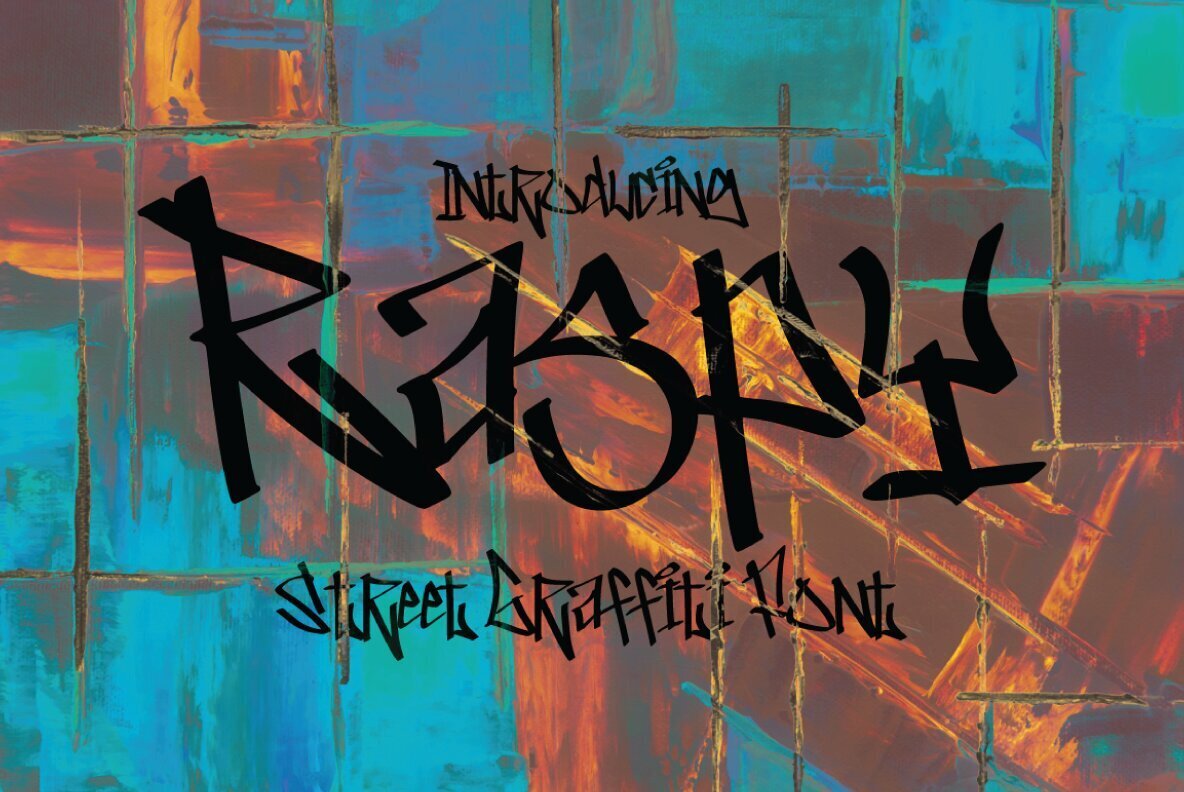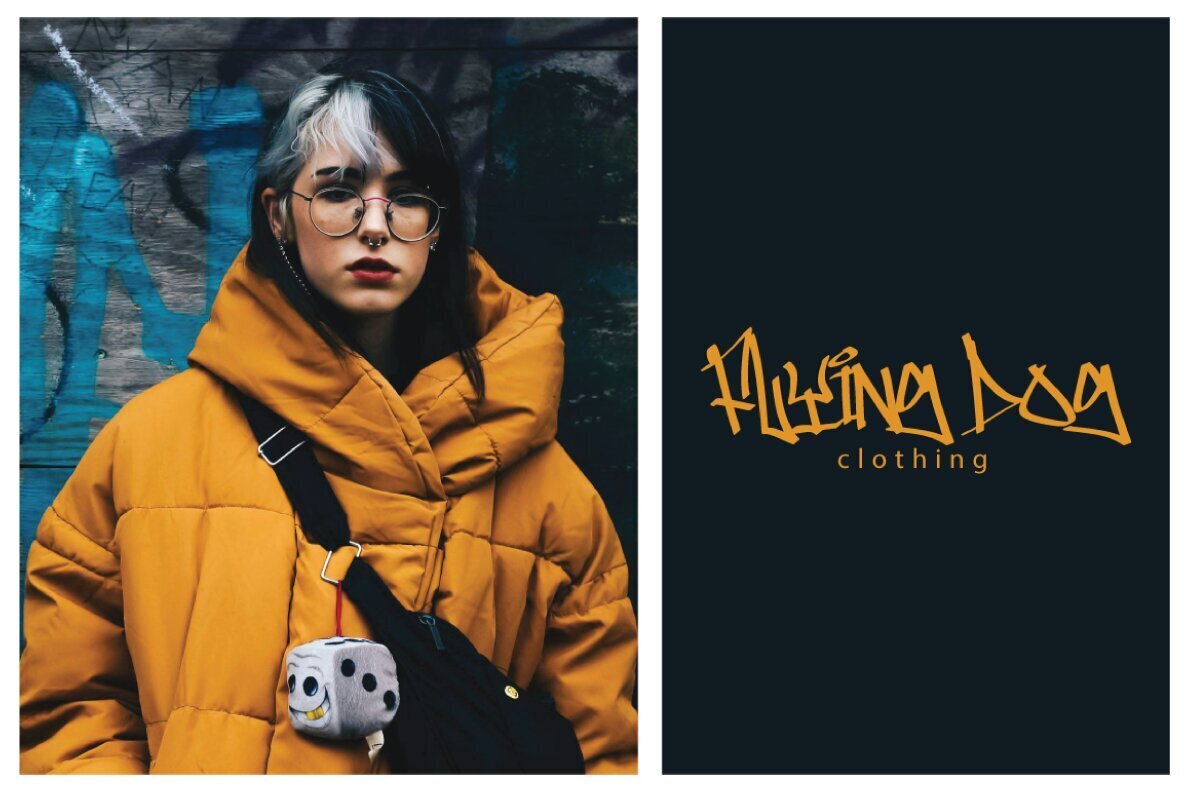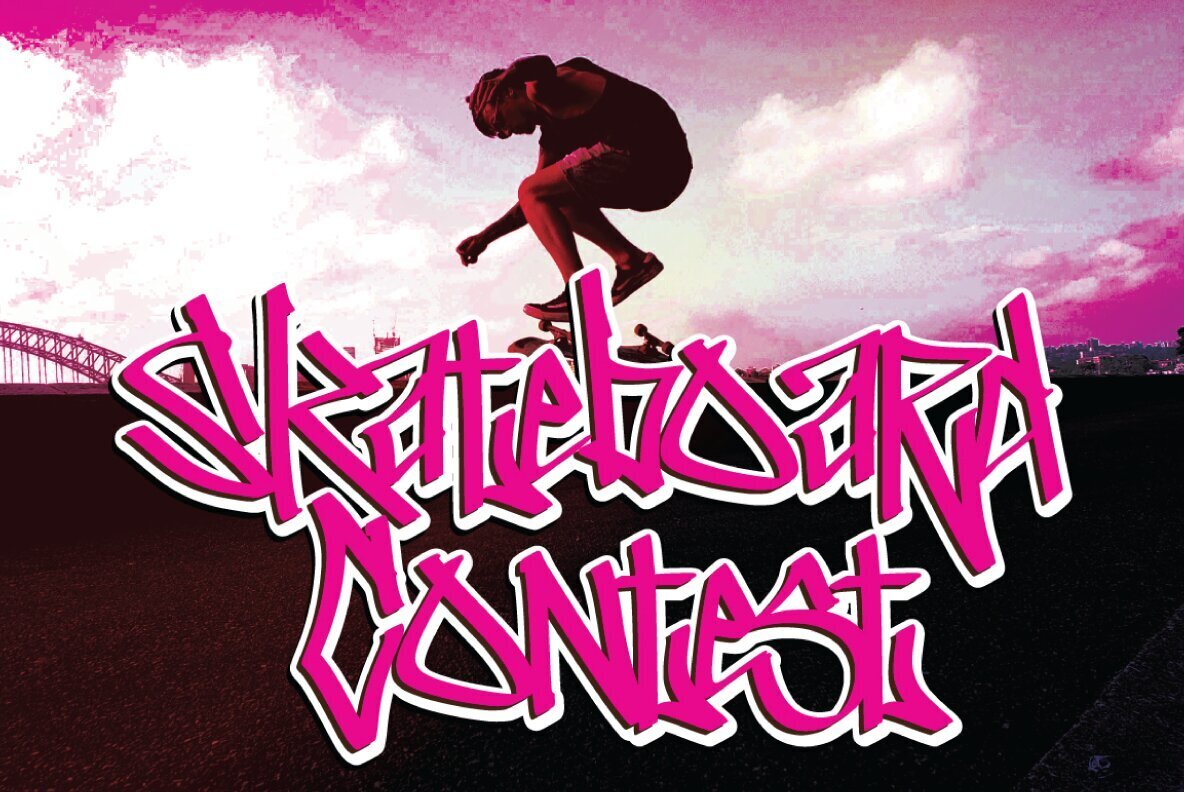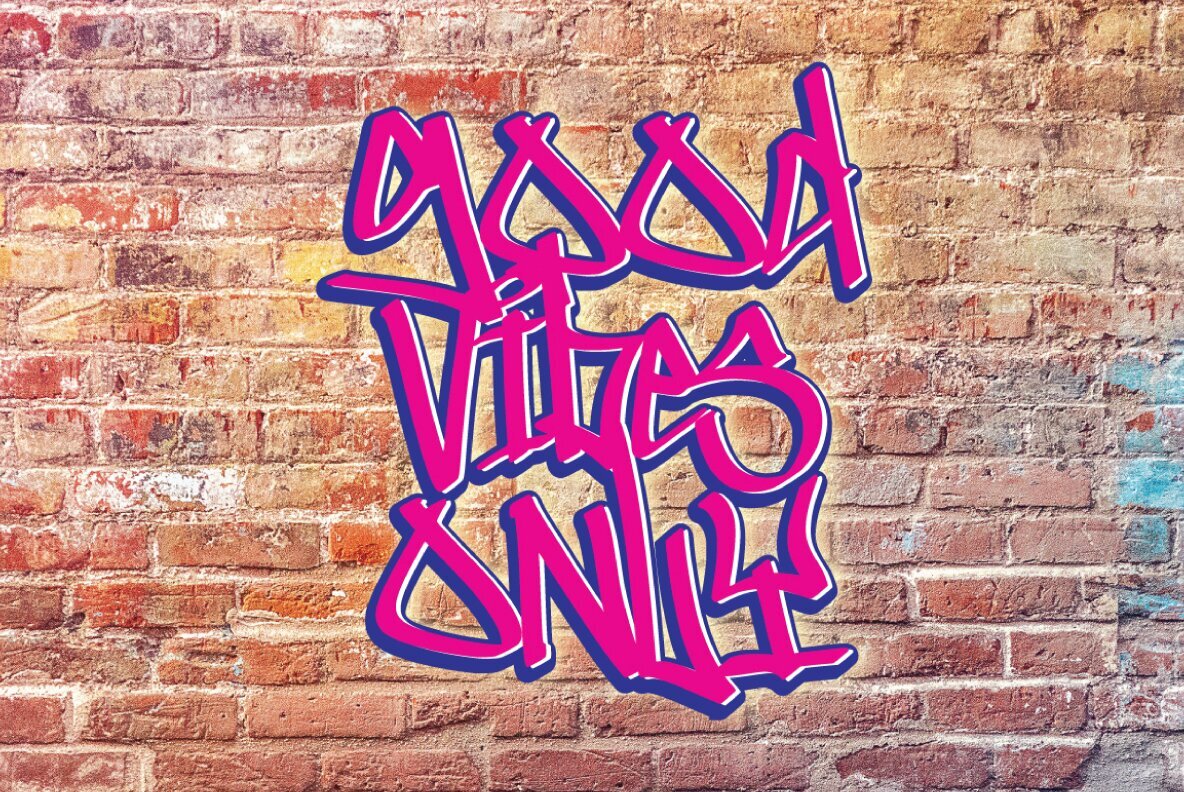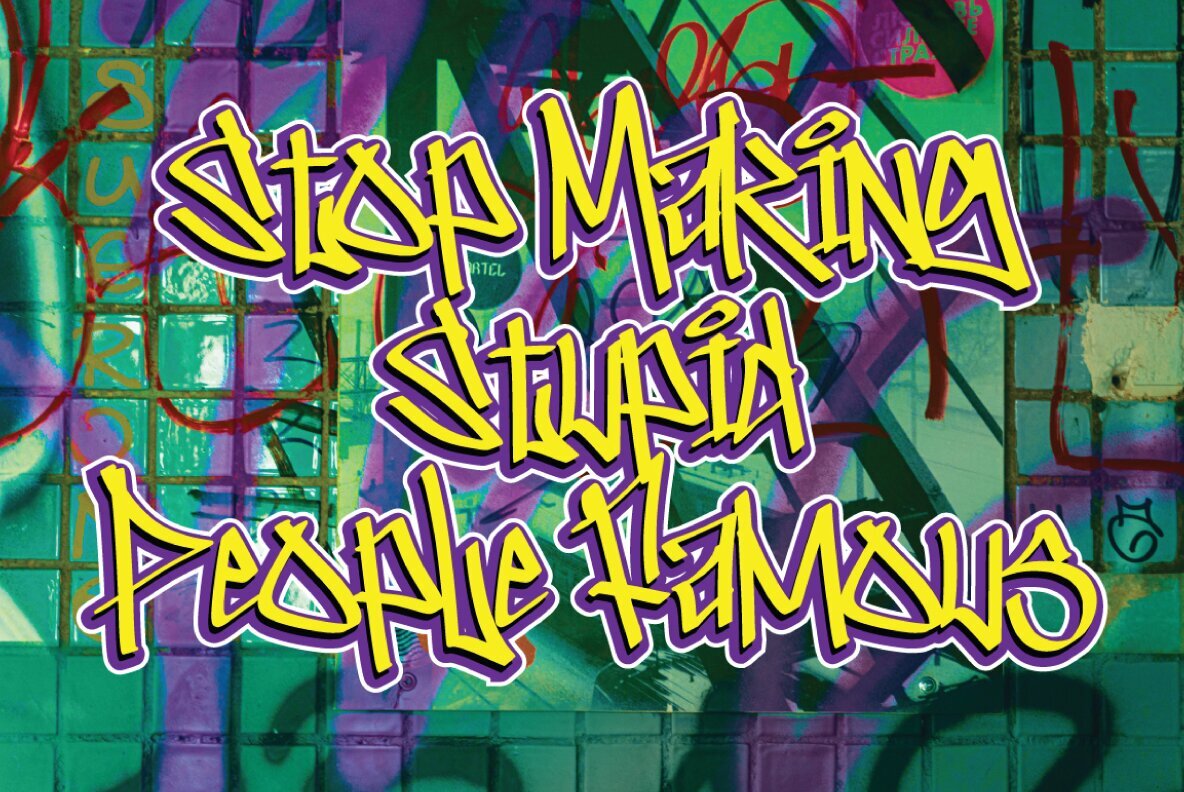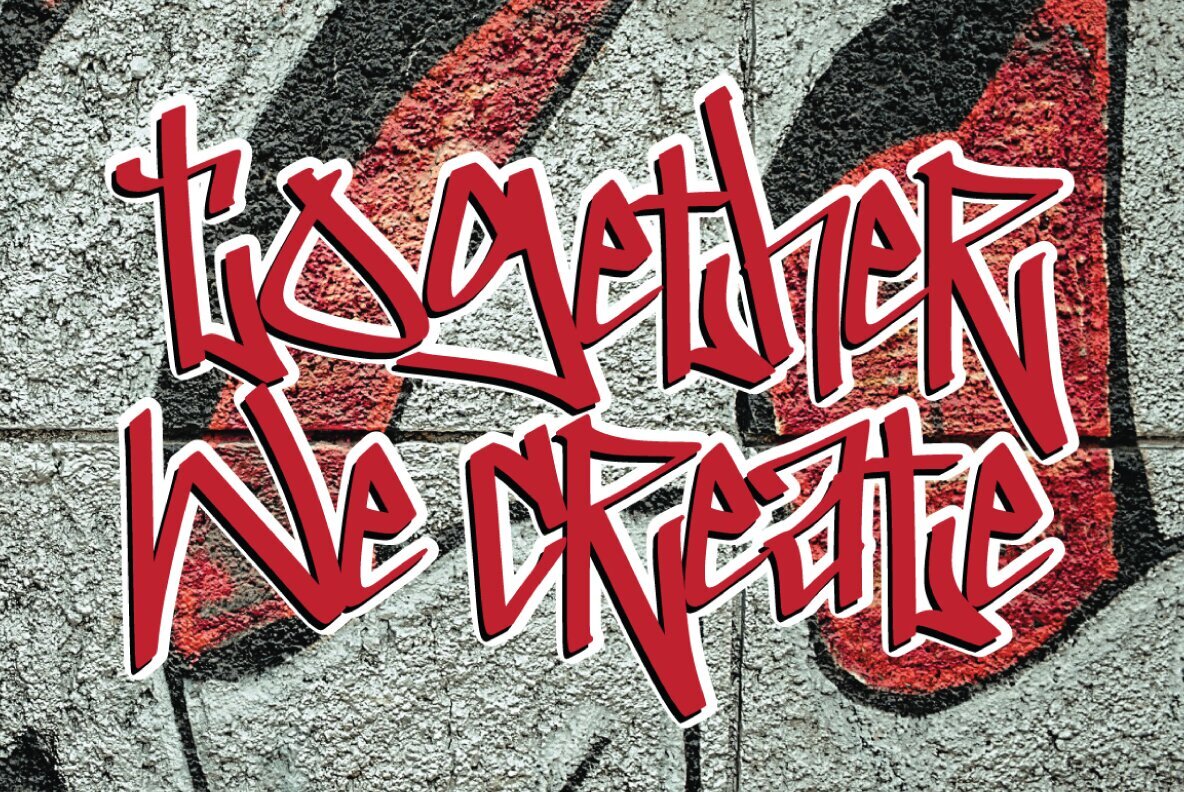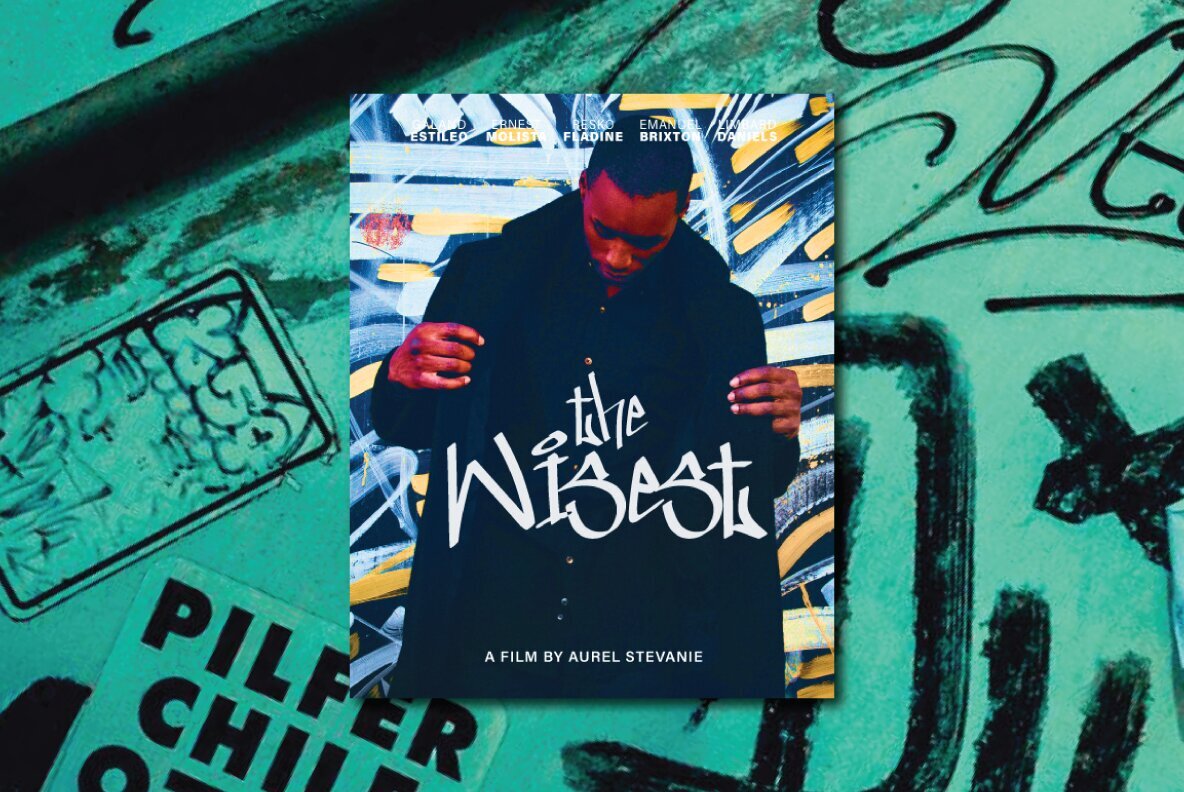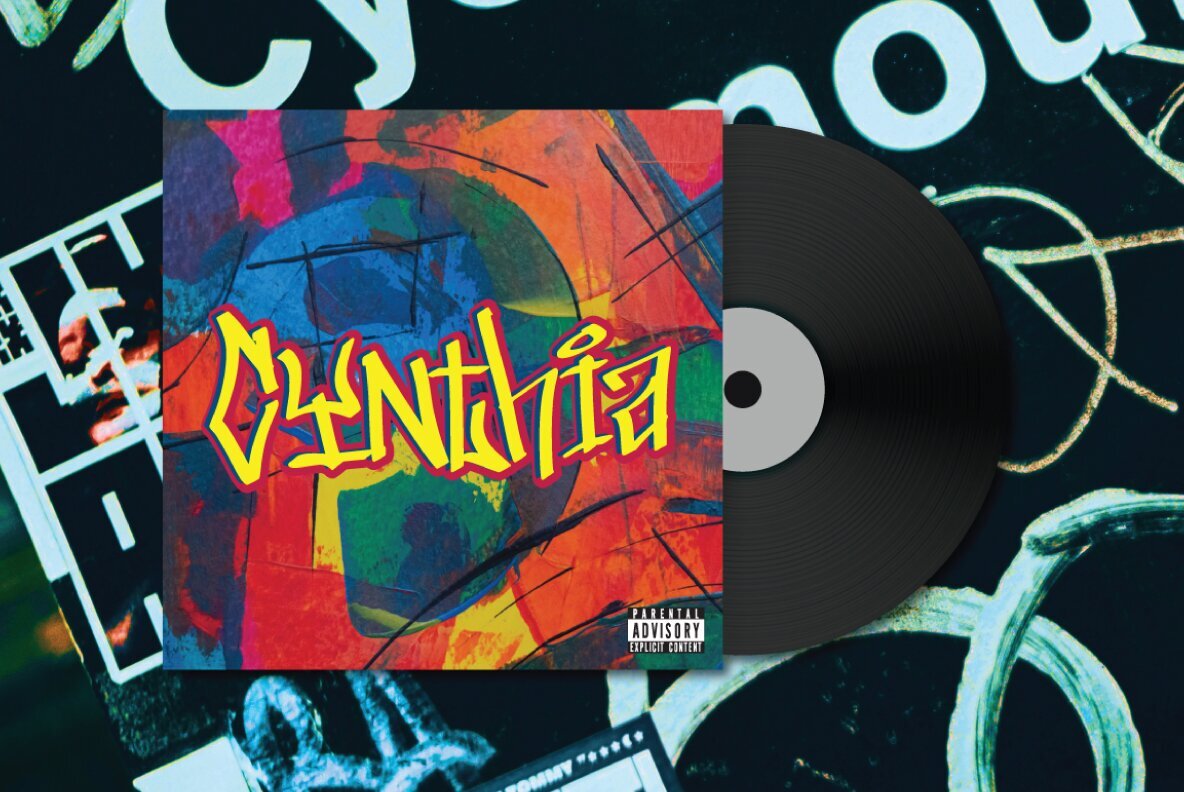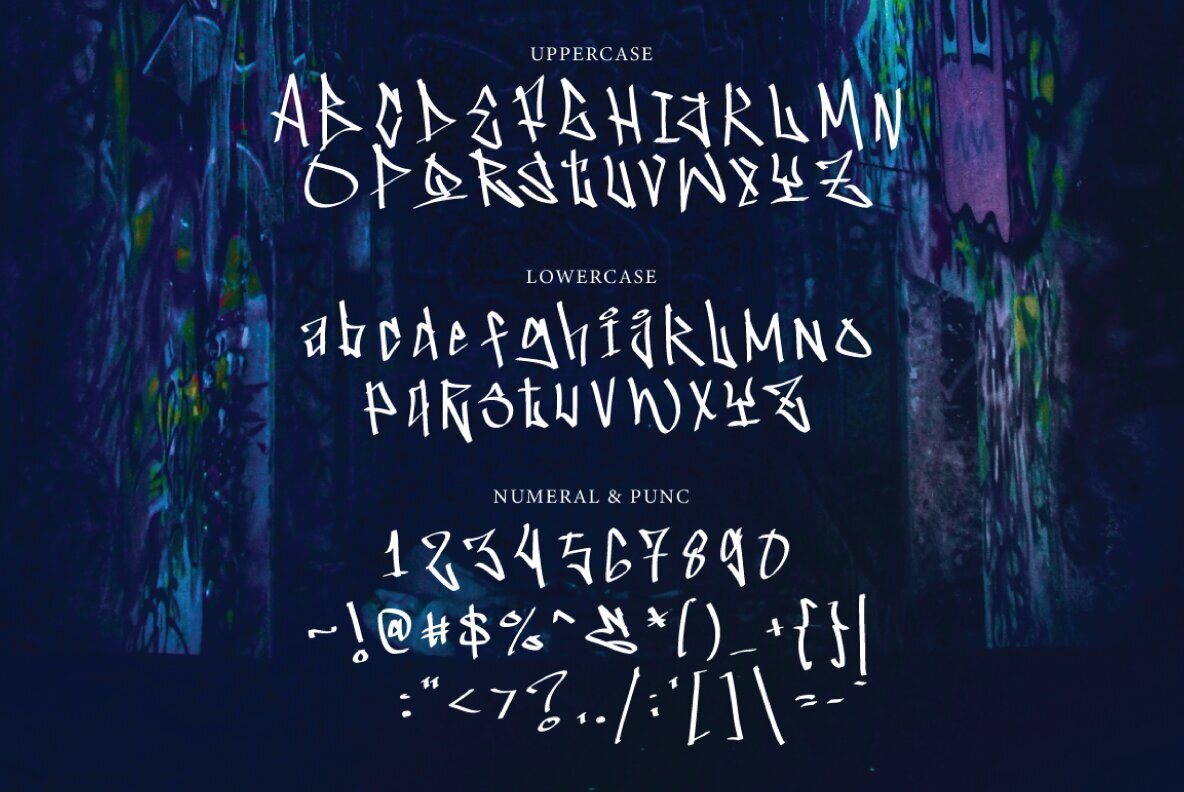
Raspy Graffiti Font
Raspy Graffiti Regular
Raspy Graffiti Font brings a contemporary approach to graffiti-inspired typography, offering smooth, refined strokes blended with a distinctly modern aesthetic. Its streamlined letterforms provide a sophisticated touch that complements both urban and minimalist layouts.Raspy Graffiti Font: Modern Edge Meets Minimal Style
Perfect for branding, apparel, poster design, and digital projects, Raspy Graffiti Font stands out for its ability to balance expressive style with everyday usability. The fluid design allows for bold statement pieces while maintaining readability across multiple formats.Key Features